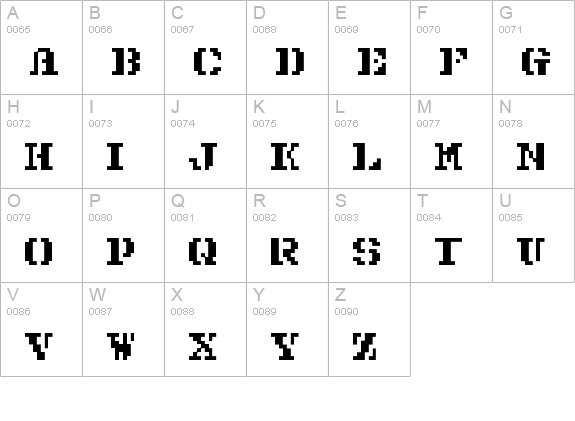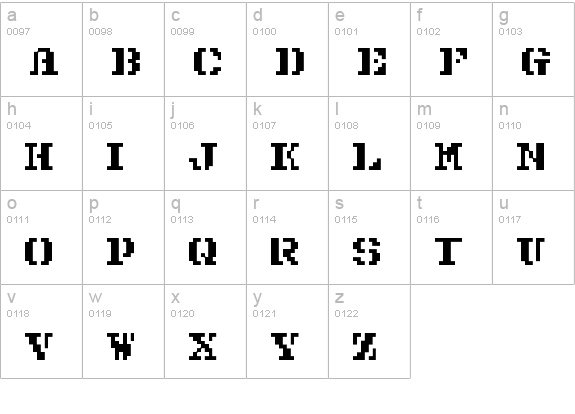
Pixel Combat Font Details
Pixel Combat is a free for personal use font in the Modern > Stencil category. It has been downloaded 11 times and is available for Windows, Mac and Linux.
Introducing Pixel Combat, a dynamic and visually captivating font that will transport your design projects into the exciting realm of retro gaming. This font embodies the essence of classic pixelated graphics, seamlessly merging nostalgic elements with a modern twist. Its bold and sharp lines evoke a sense of adventure and action, making it perfect for capturing the attention of any audience. Pixel Combat is not only visually stunning, but it also offers versatility and ease of use. Whether you're designing a logo, creating game titles, or crafting eye-catching posters, this font will effortlessly enhance the overall aesthetic of your work. Its intricate details and carefully crafted characters provide a unique and memorable touch to any design project. What sets Pixel Combat apart is its availability as a free download. Thanks to FontsMarket.com, you can easily access and enjoy the benefits of this incredible font without any cost. This means that you have the opportunity to elevate your designs without breaking the bank, making it an ideal choice for both professional designers and hobbyists alike. So, why wait? Unleash your creativity and embrace the pixelated world of retro gaming with Pixel Combat. Download this remarkable font for free at FontsMarket.com and watch your designs come to life with its captivating charm and undeniable impact. Let Pixel Combat lead the way in your design journey and leave a lasting impression on your audience.